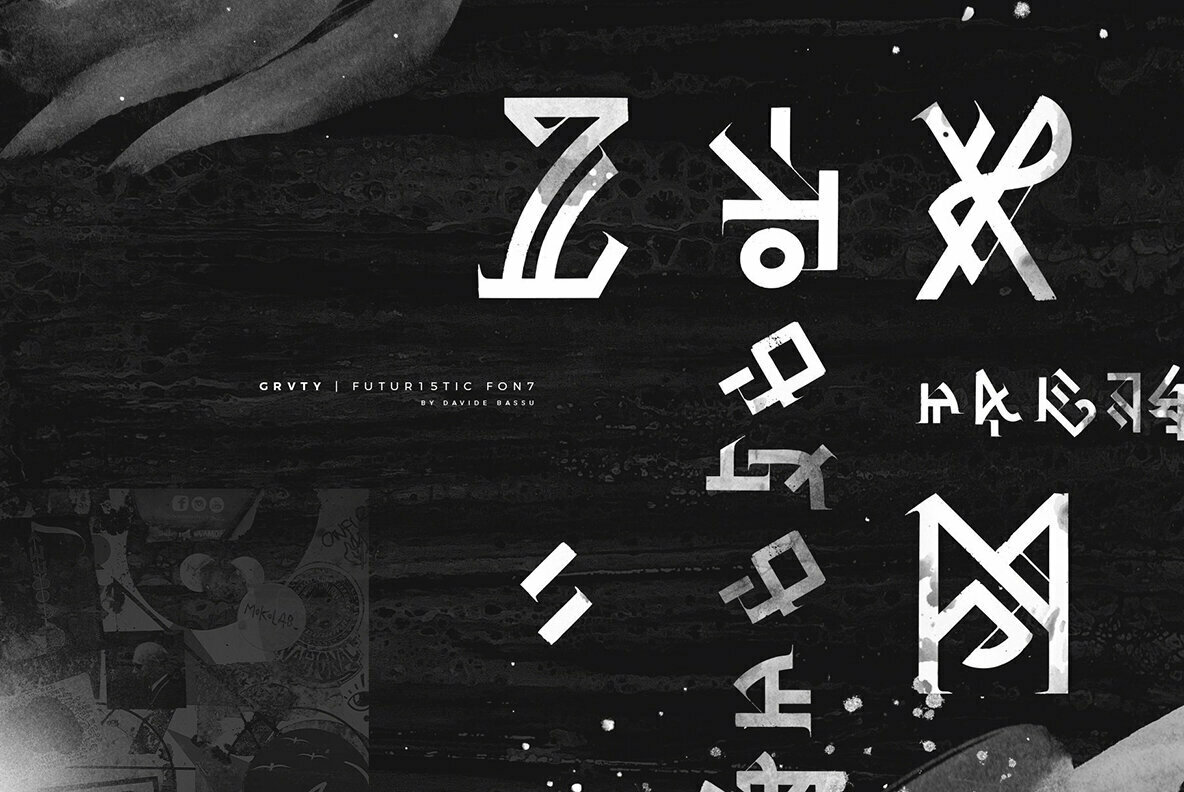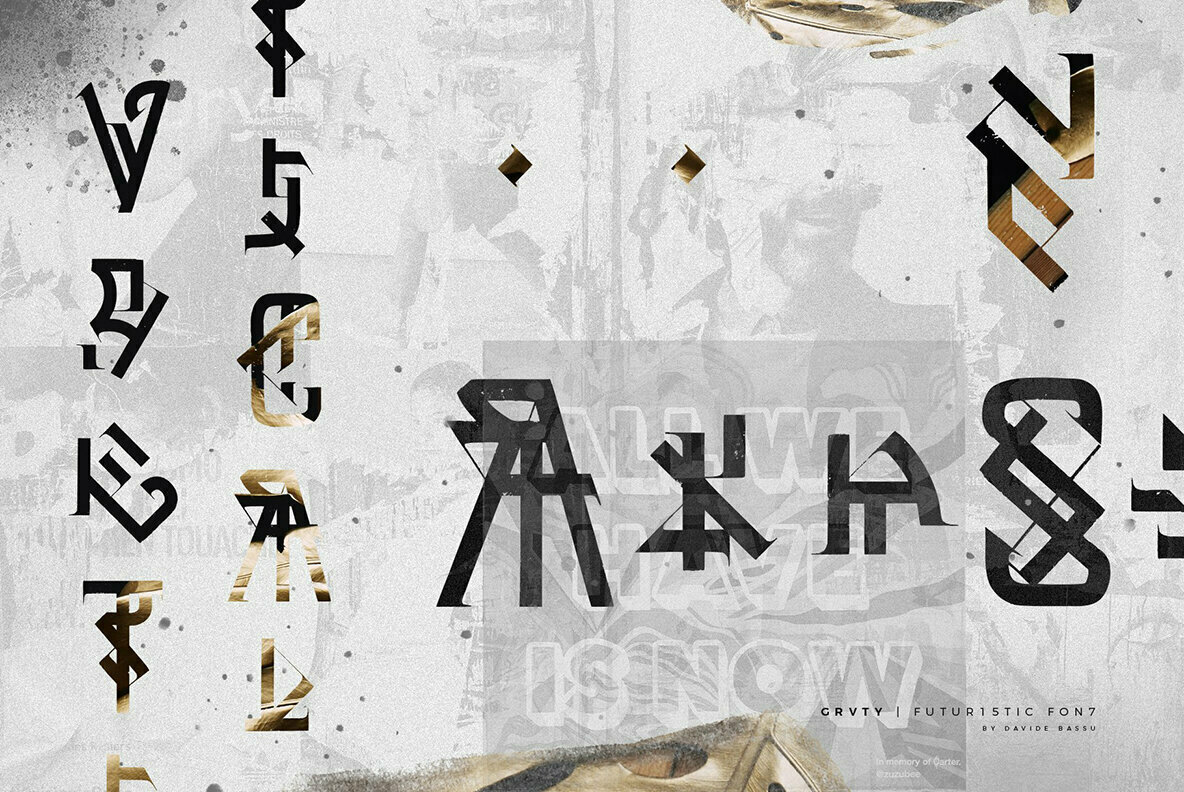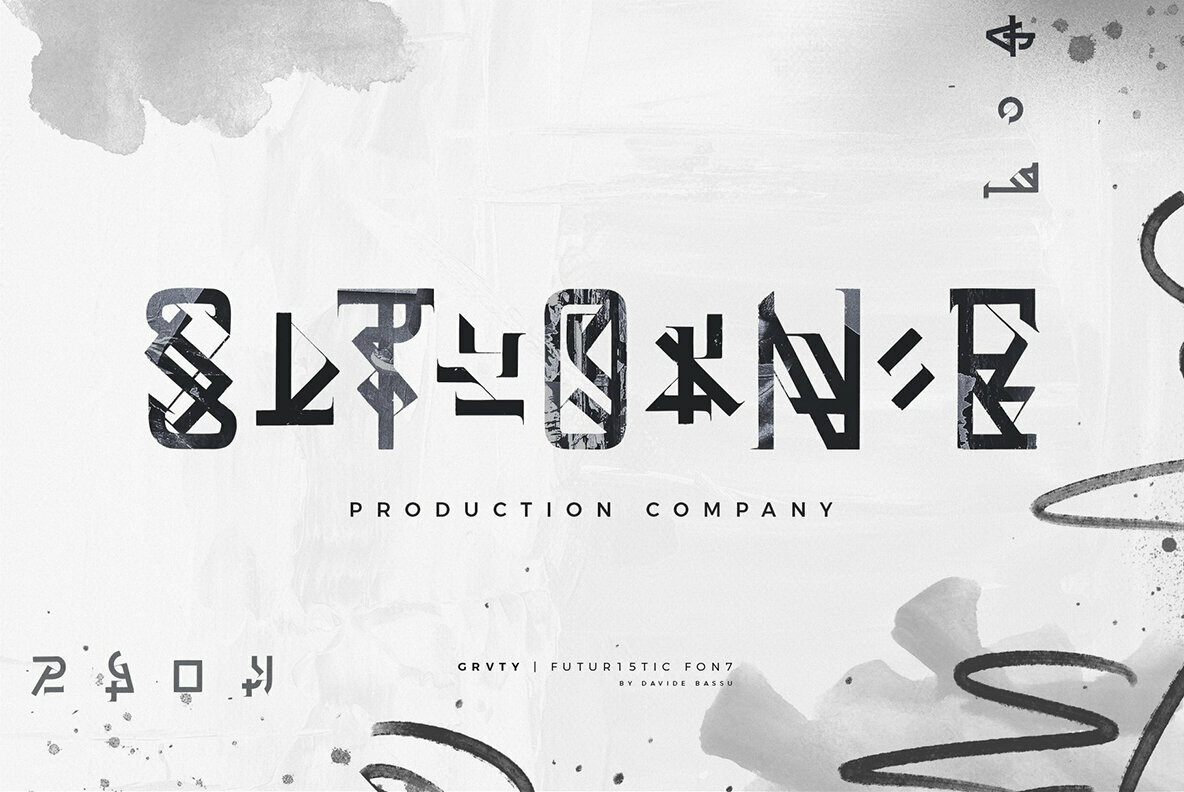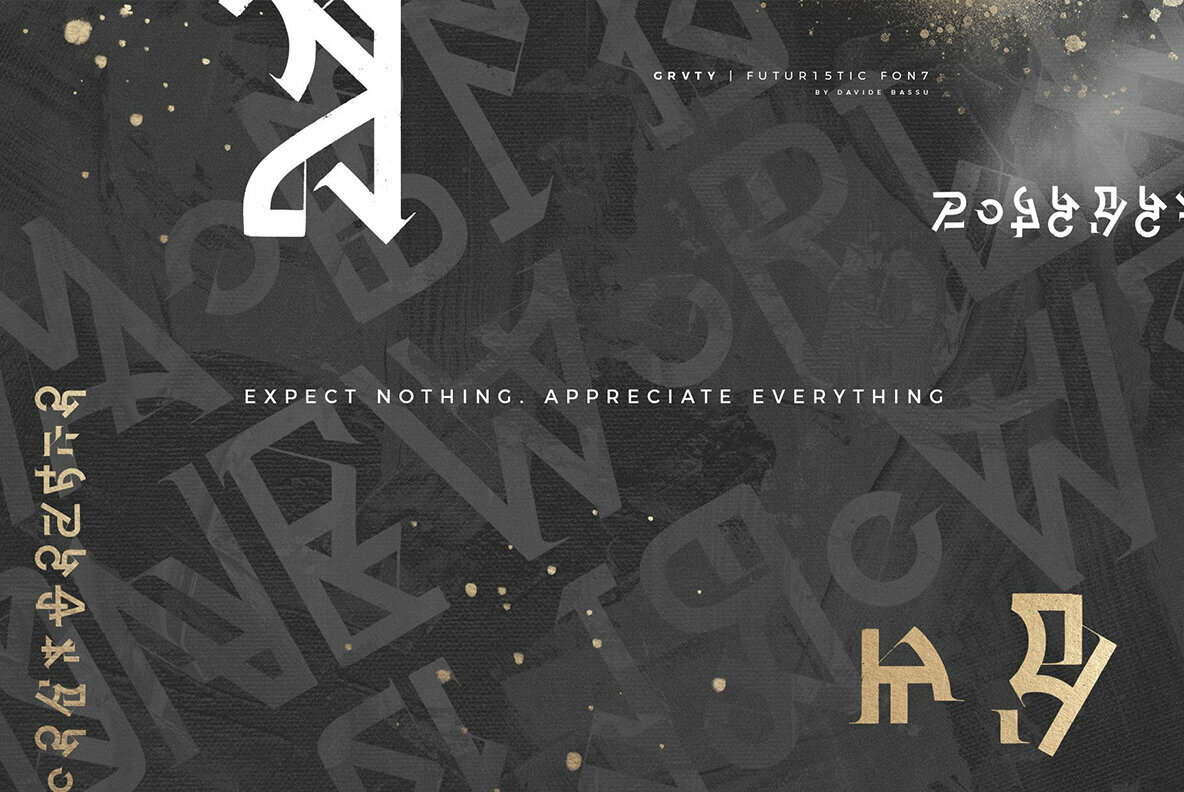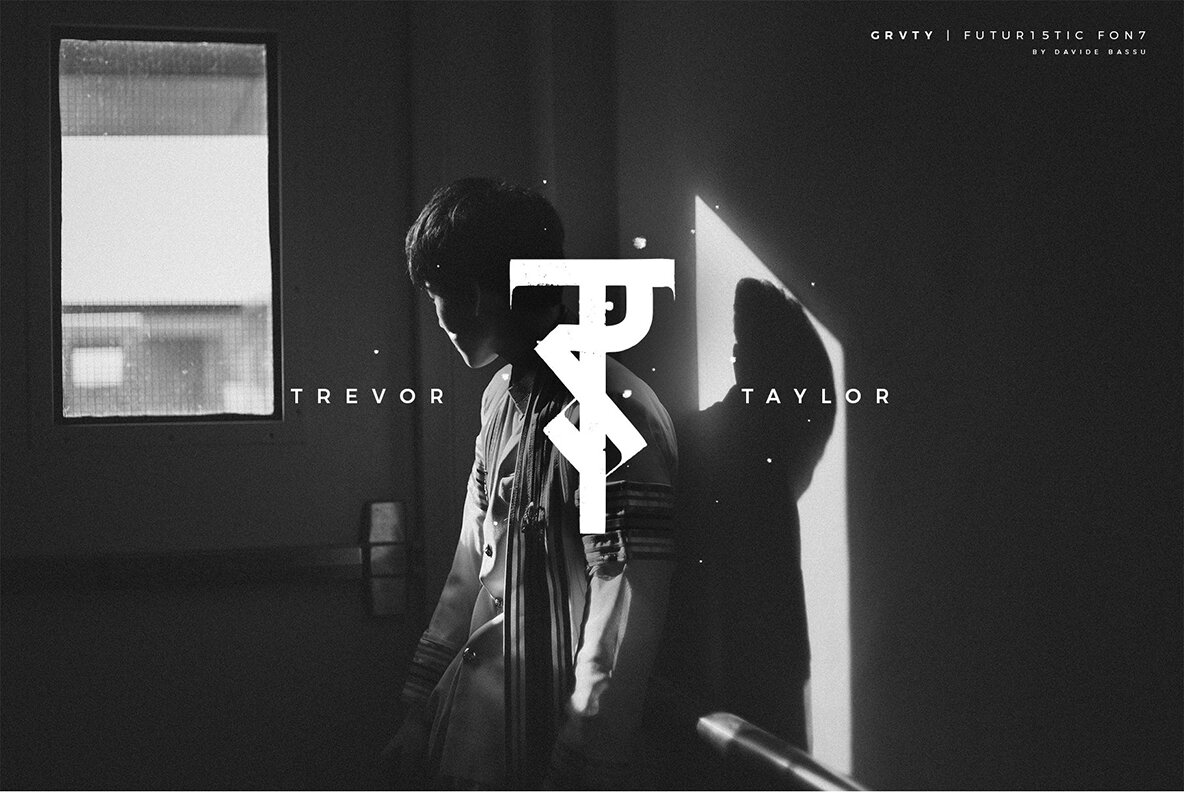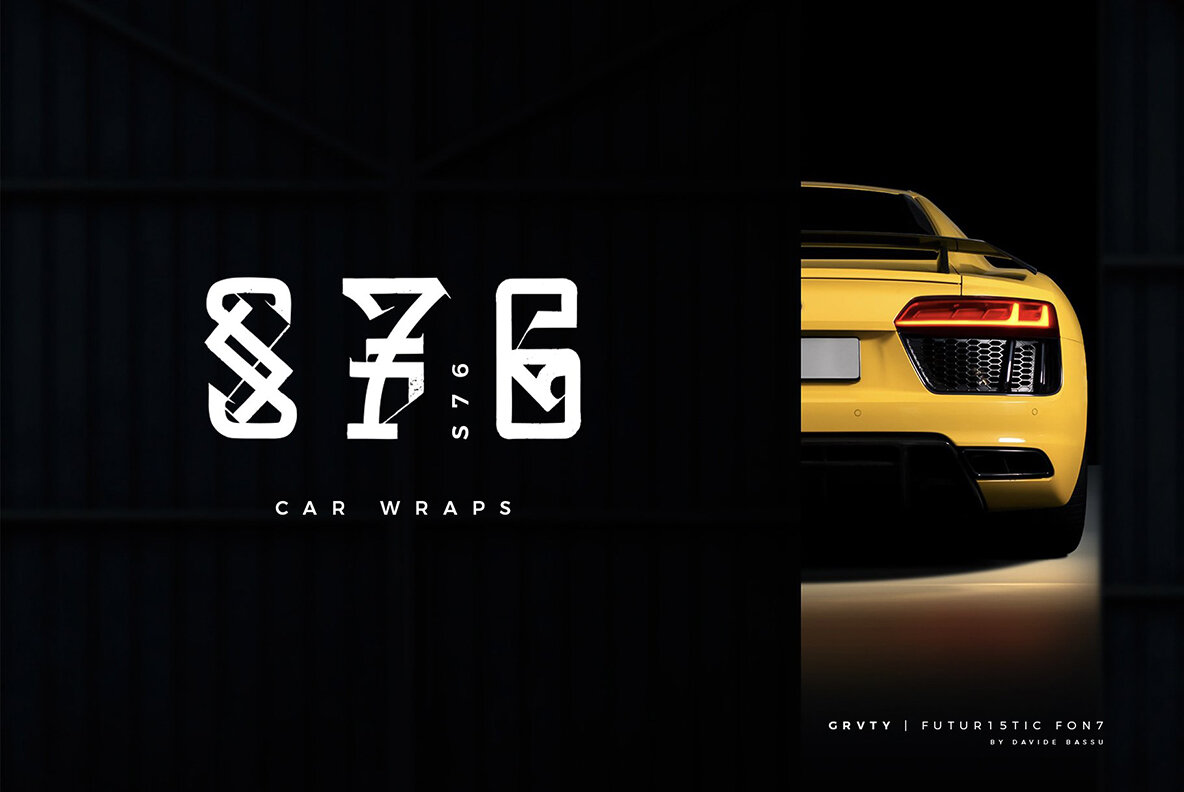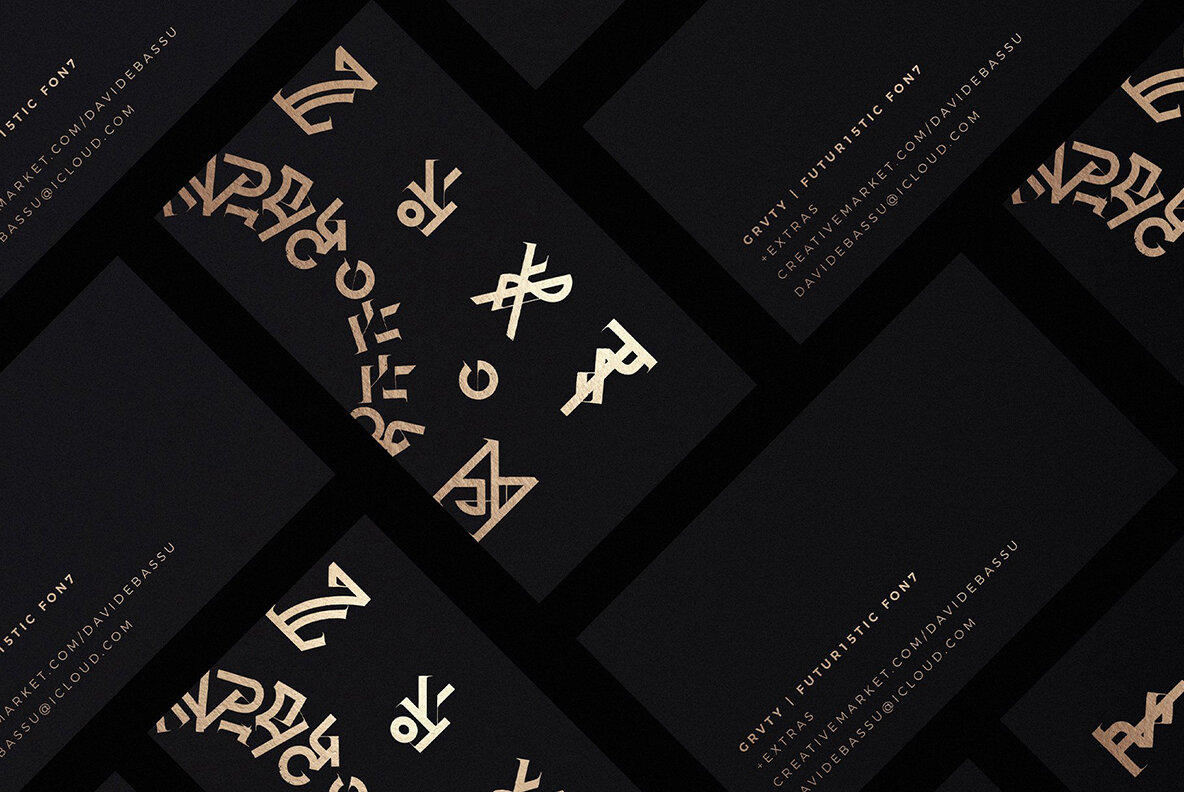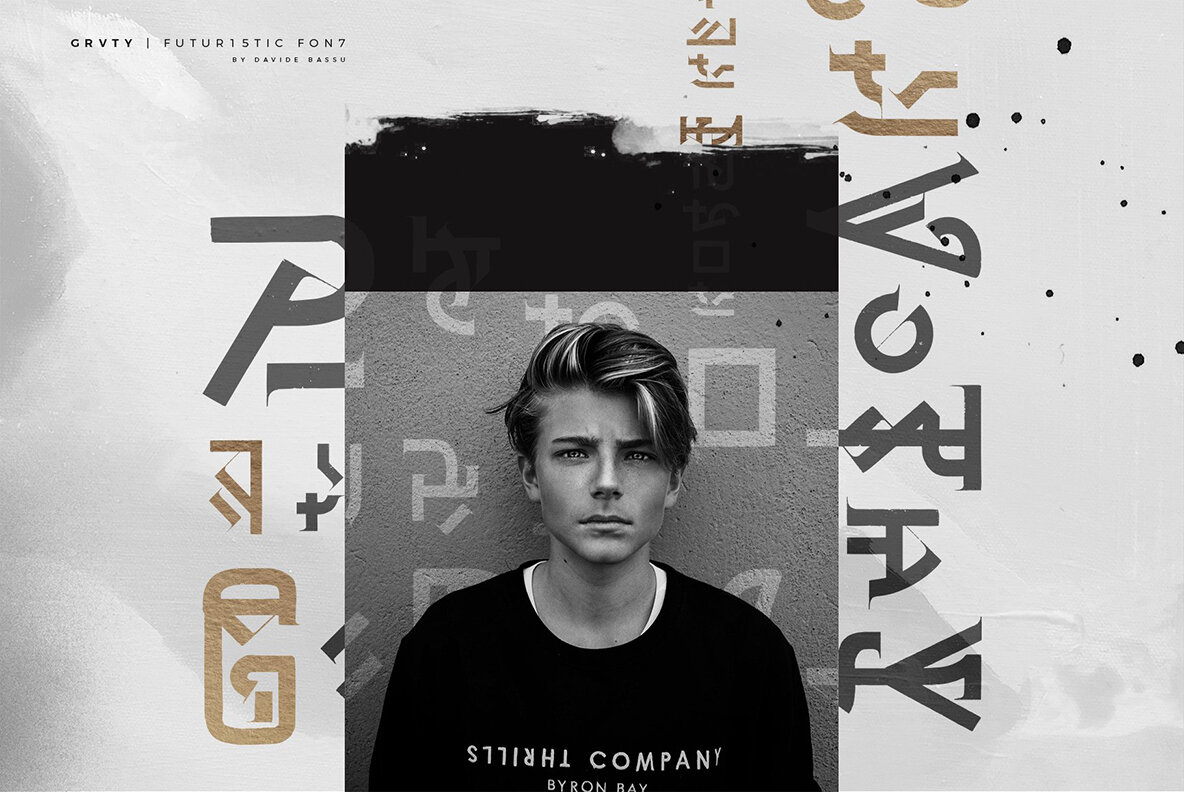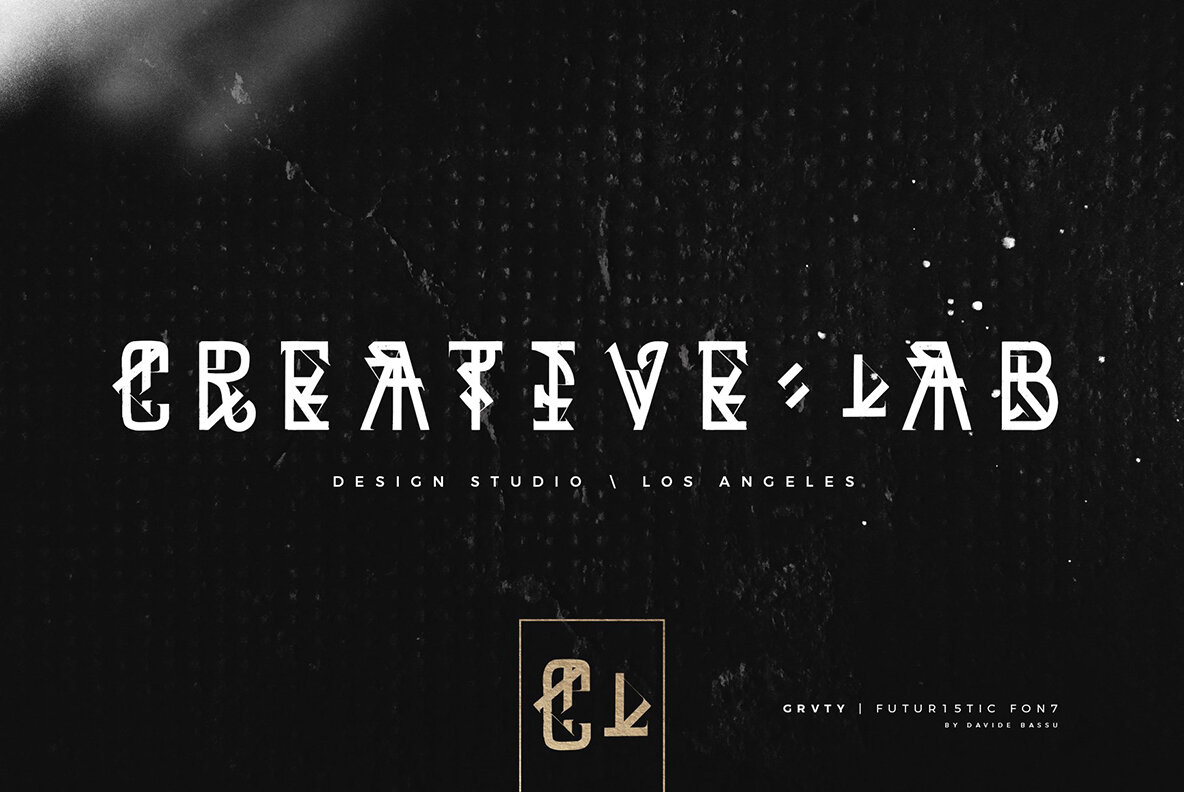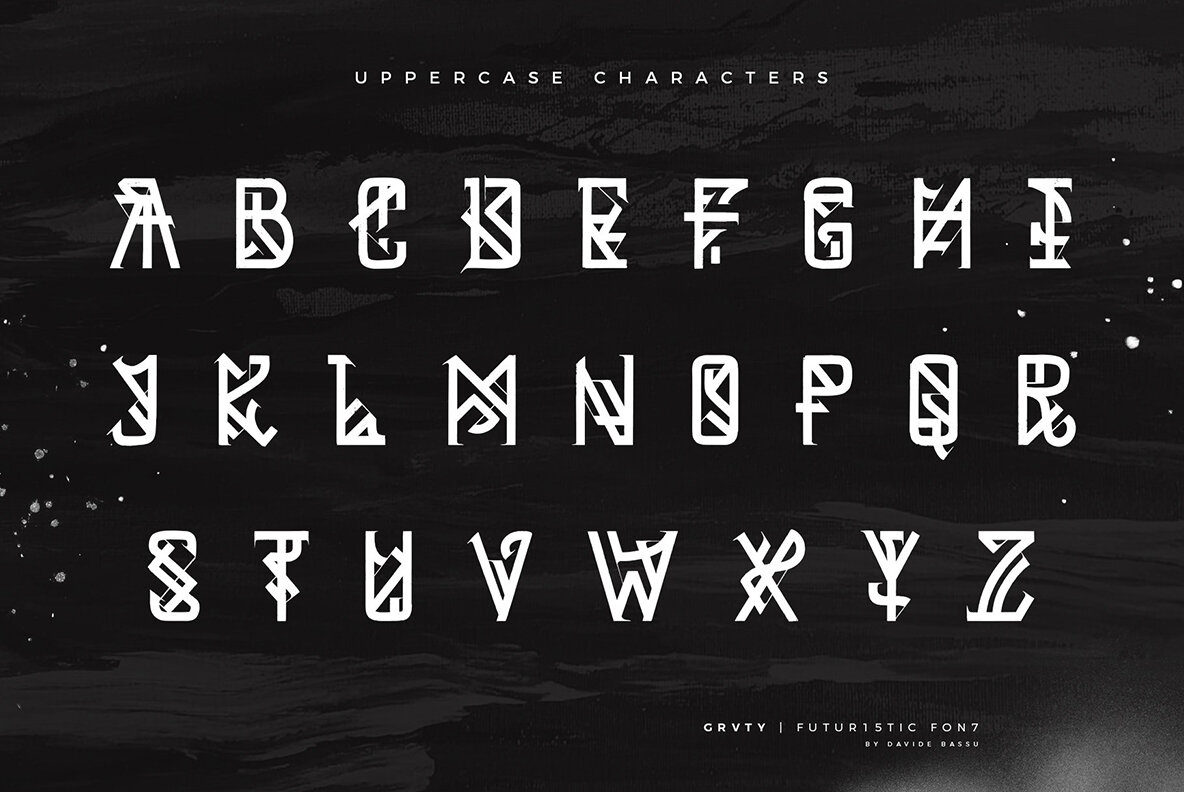
GRVTY Font
GRVTY
GRVTY or Gravity is a futuristic hand-made font that combines calligraphy, typography, and graffiti. This project is inspired by Calligraffiti, an art form that can be classified as either abstract expressionism or abstract vandalism. Simply put, it is the conscious effort of making a word or group of words into a visual composition.
GRVTY comes with full set of uppercase and abstract lowercase letters, numerals and a large range of punctuation. This font can be used for a lot of design project including branding design, print material, logos, clothing design and so on.